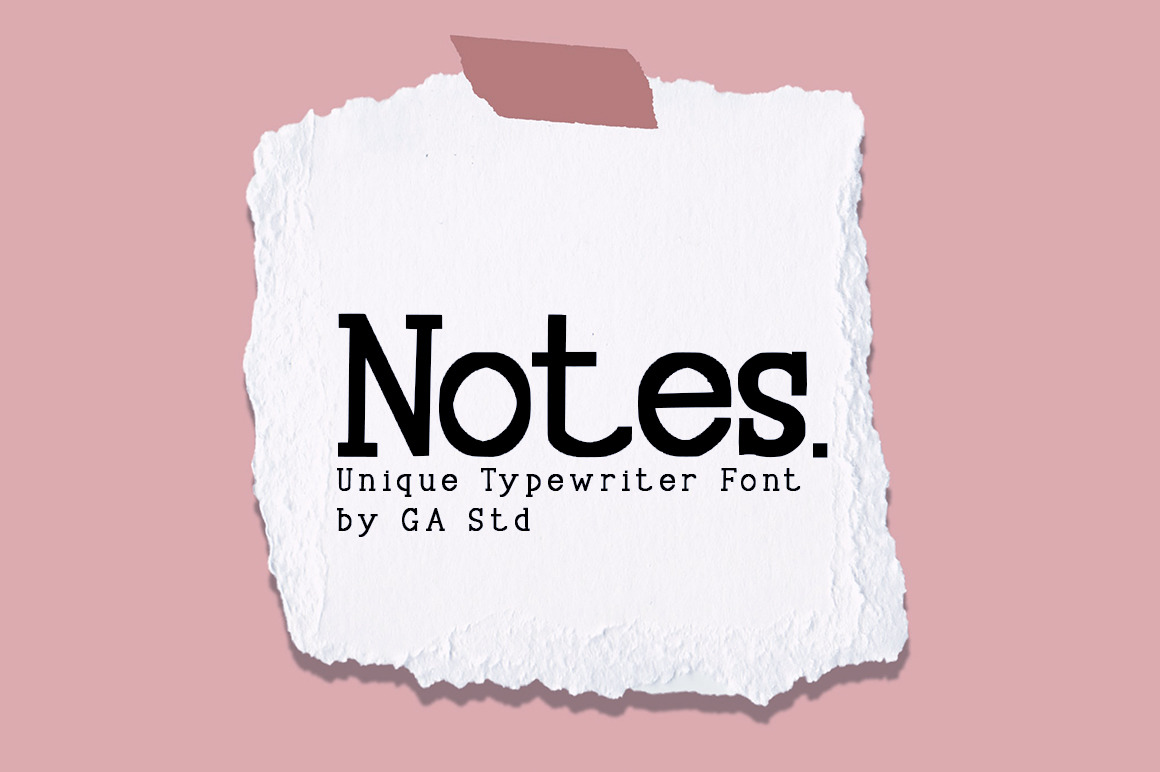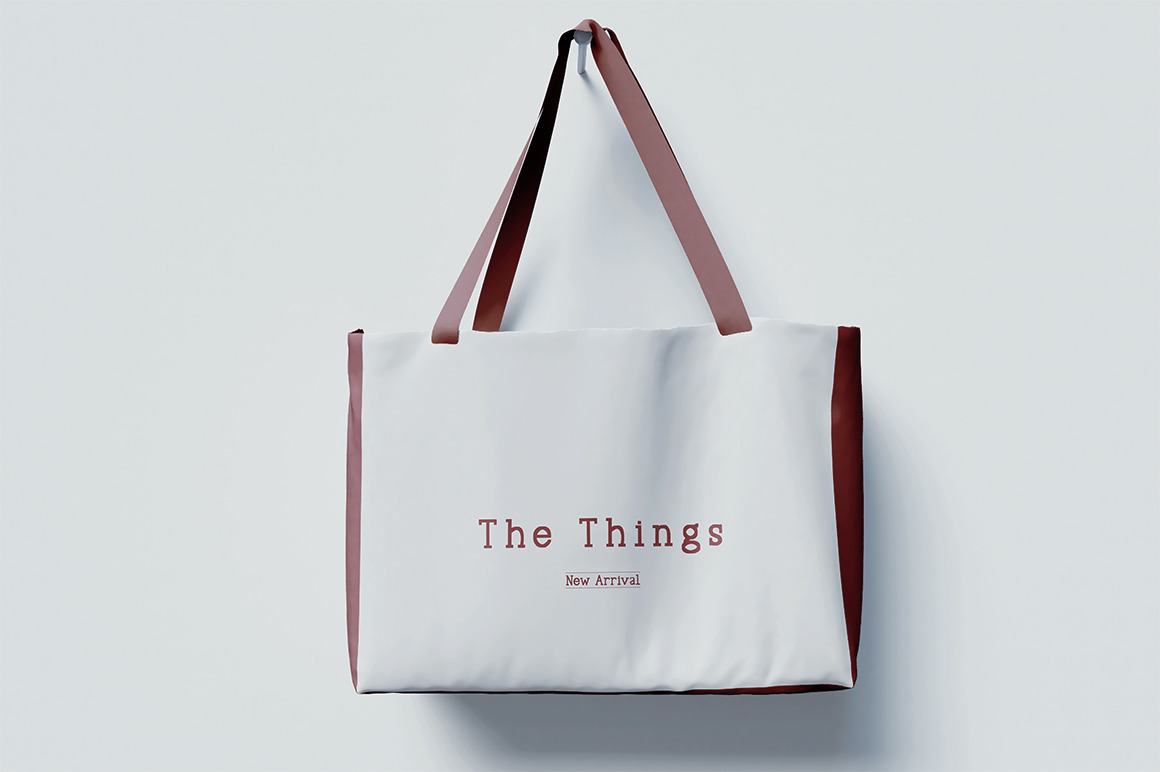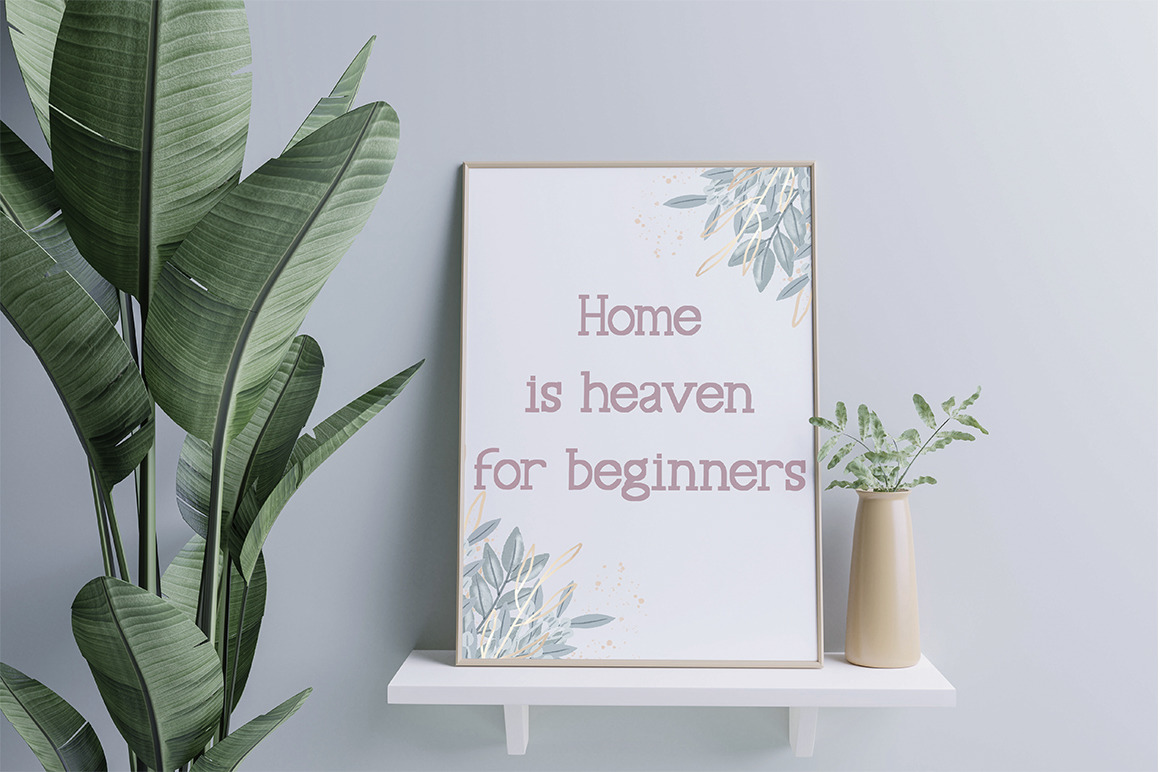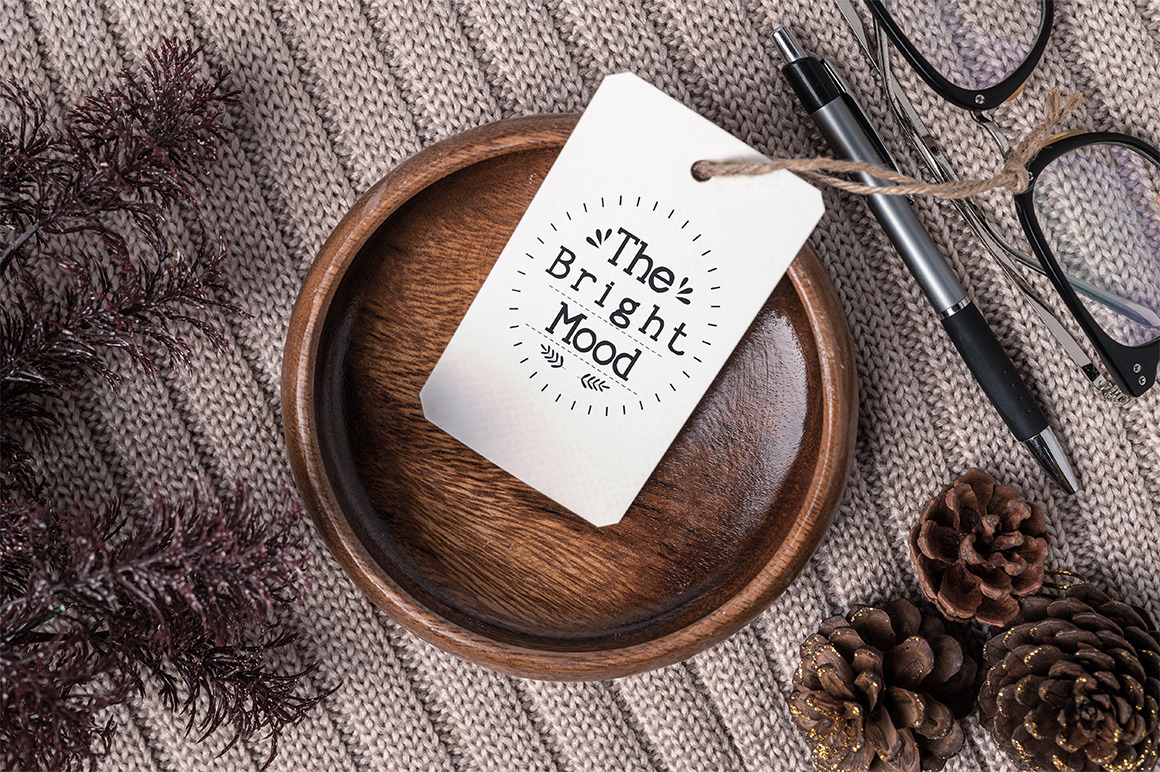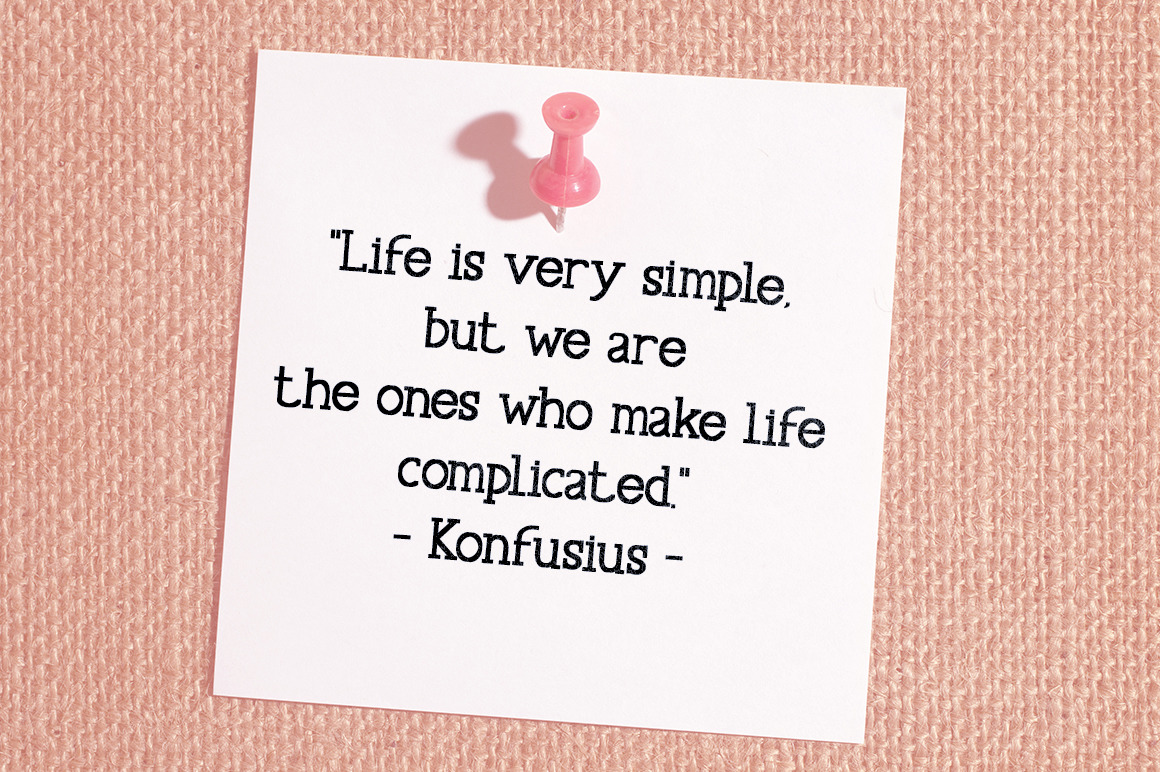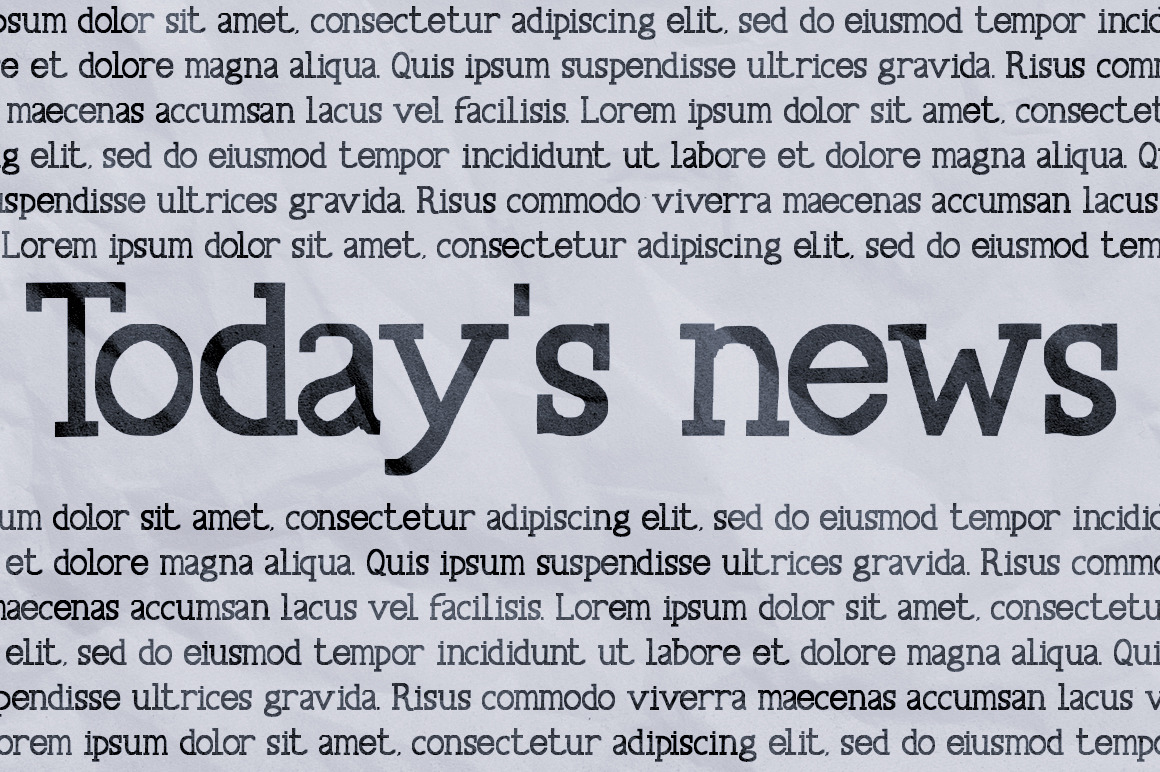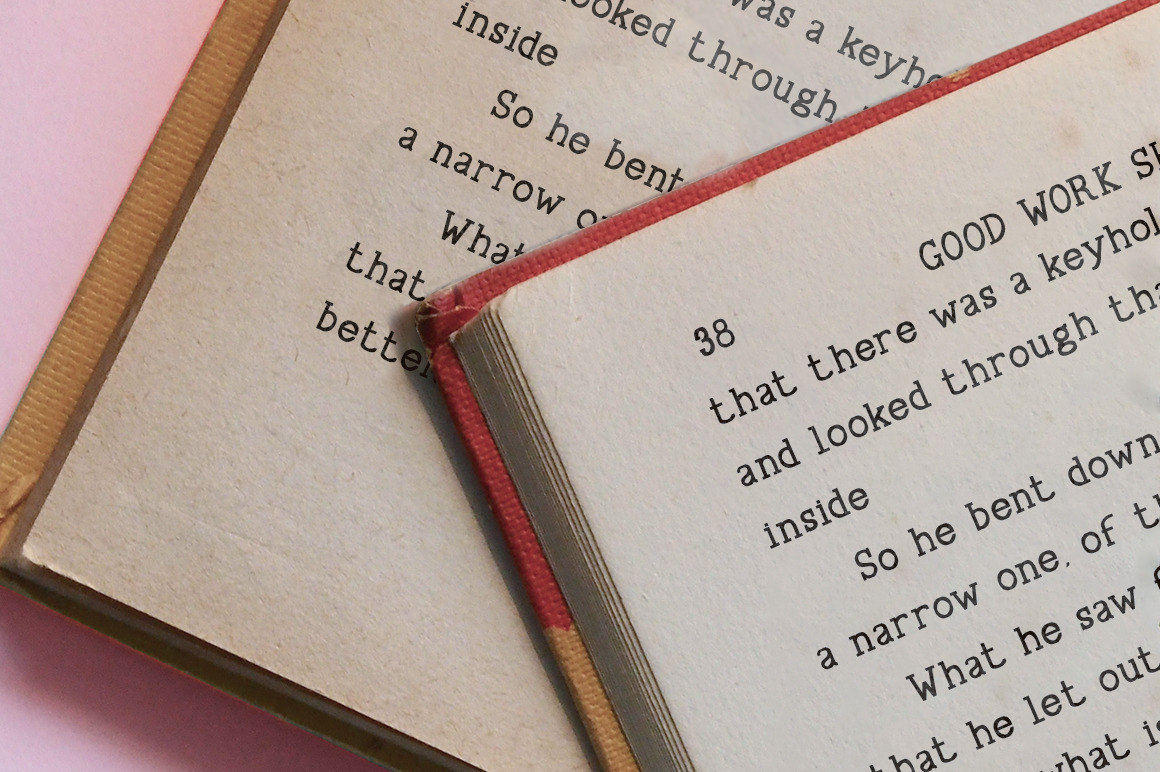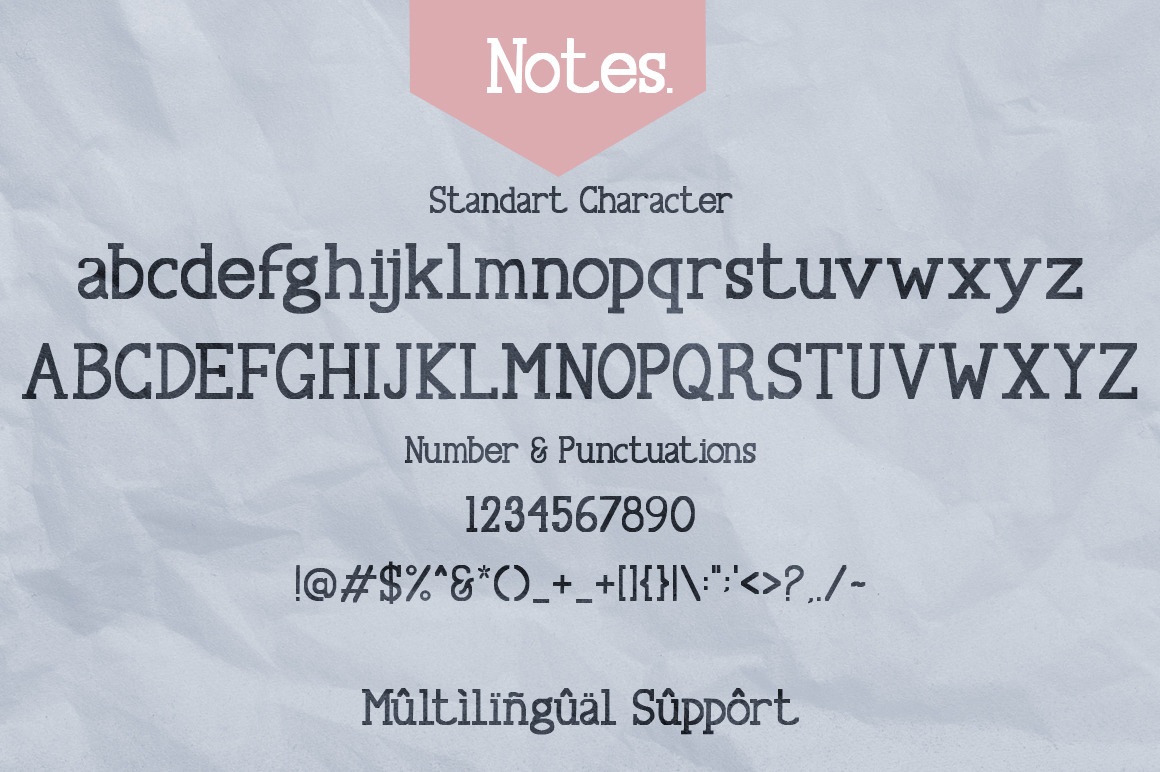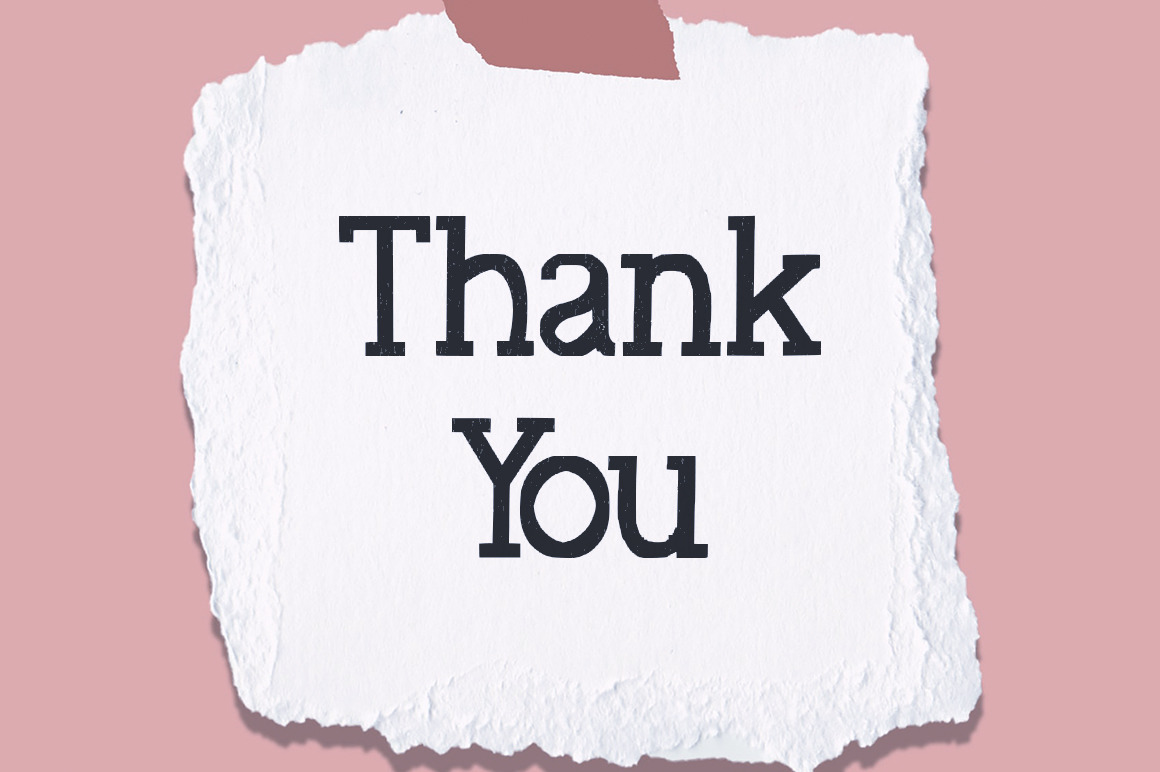
Notes Font
Introducing Notes - Unique Typewriter Font
Notes is a serif font with typewriter style. This font is perfect for fashion brand, apparel, cover book, business card, logo brand, clothing, quotes, newspaper and also business brand name like barber shop or taylor.
This Font Template contains, Elegant, Creative, Cool and has a Unique Concept.
Uppercase and Lowercase letters
Numbering and Punctuations
Multilingual Support